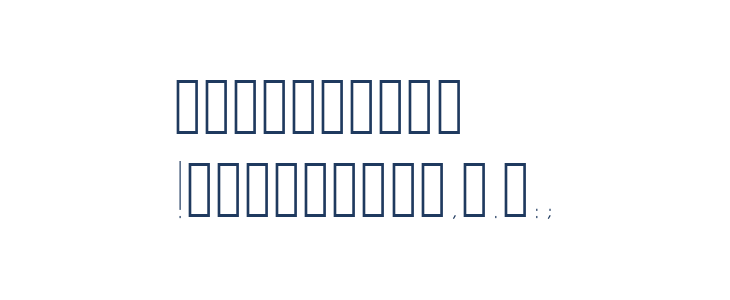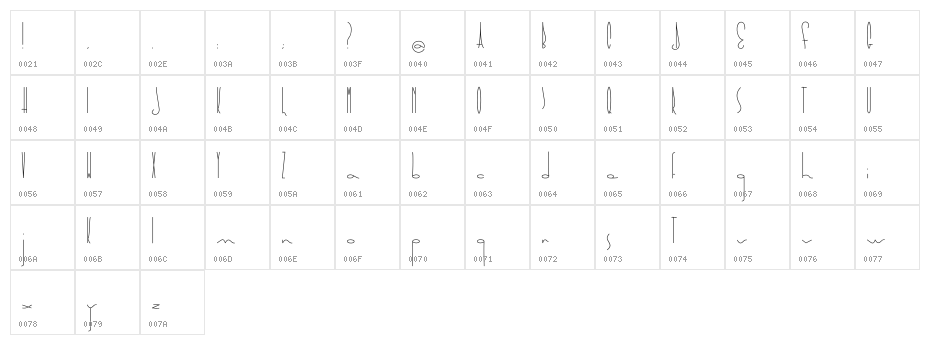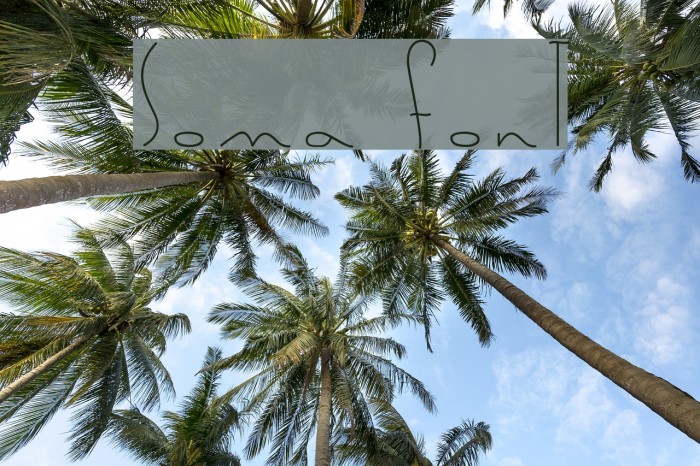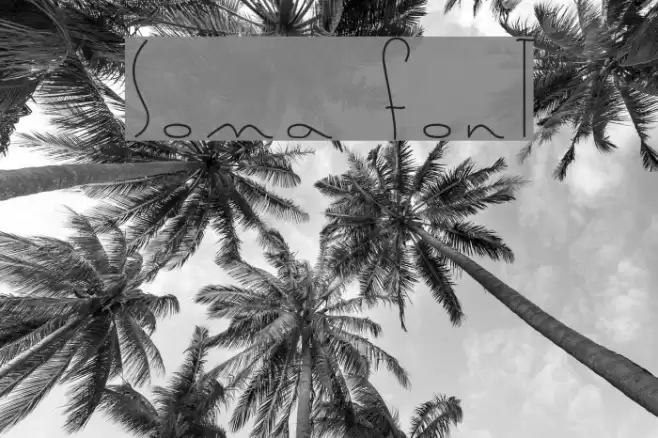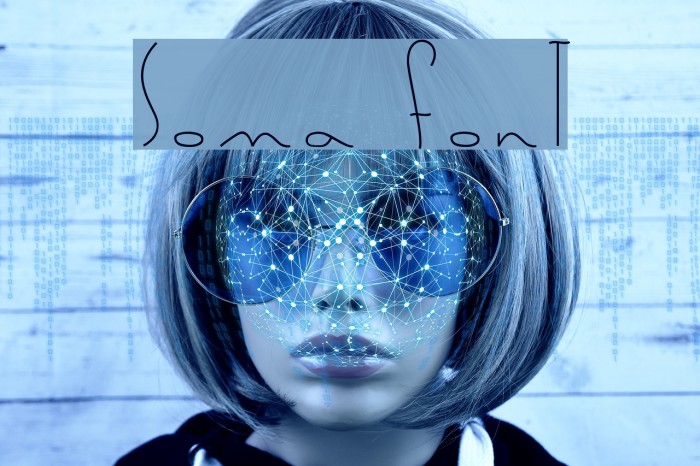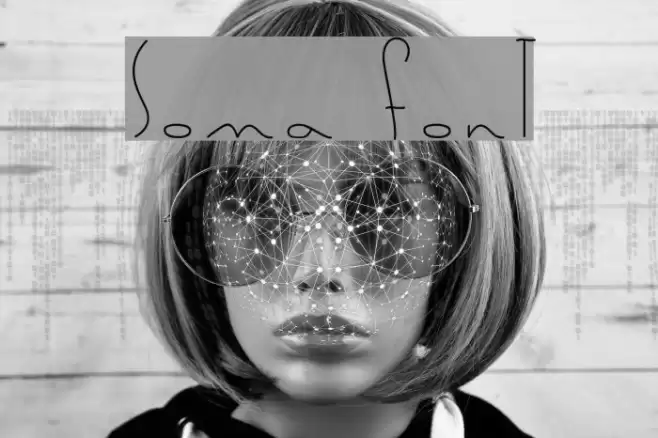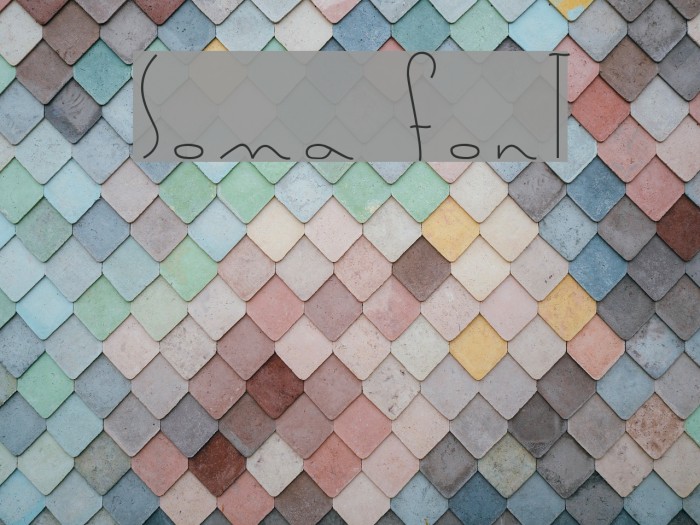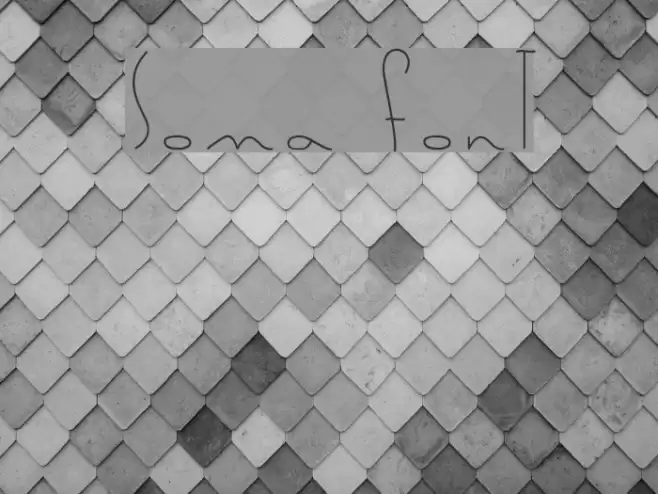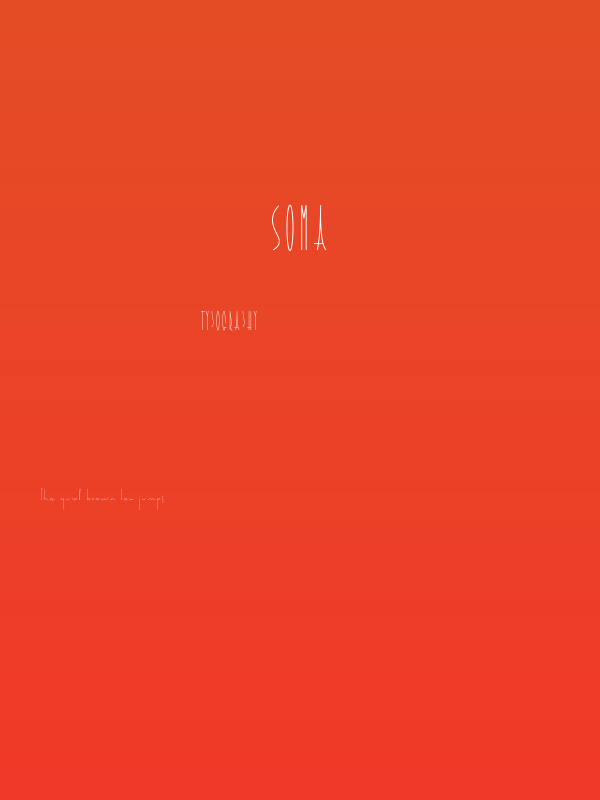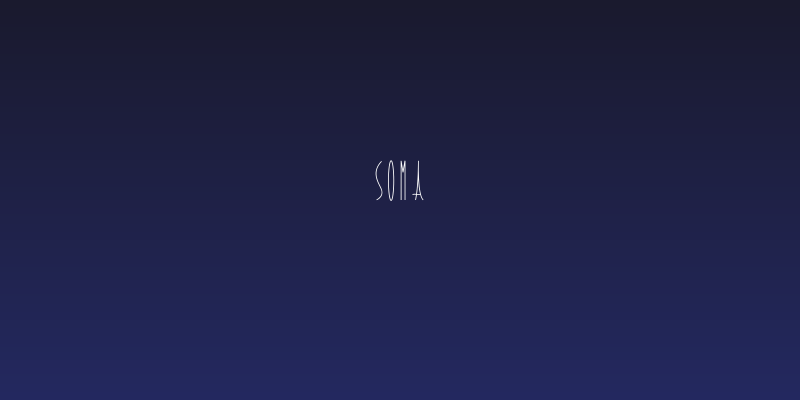
Soma Font
Soma Description
This font features a unique and artistic design with elongated and narrow letterforms, giving it a distinct and elegant appearance. The uppercase letters are particularly tall and slender, with some characters incorporating subtle curves and flourishes that add a touch of sophistication. The lowercase letters maintain a similar style, with a consistent thinness and slight variations in stroke endings, enhancing the overall aesthetic. The numerals and special characters follow the same design principles, ensuring a cohesive look across all glyphs. This font's delicate and refined nature makes it suitable for projects that require a touch of elegance and creativity.
Use CaseLogos, Headlines, Artistic projects
Proposed ProjectsIdeal for fashion branding, luxury product packaging, artistic posters, and elegant invitations.